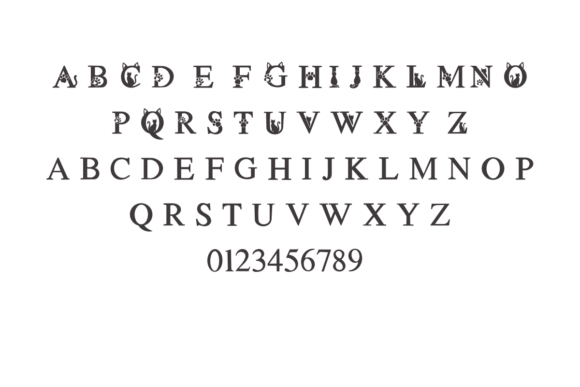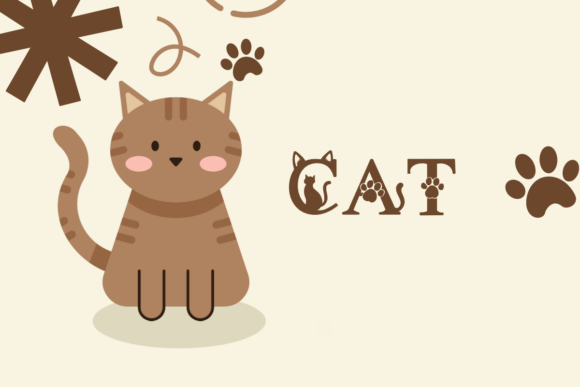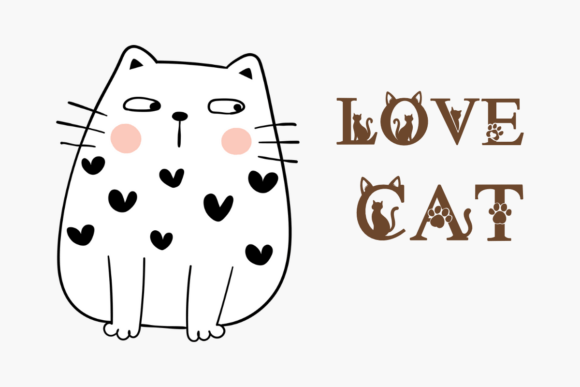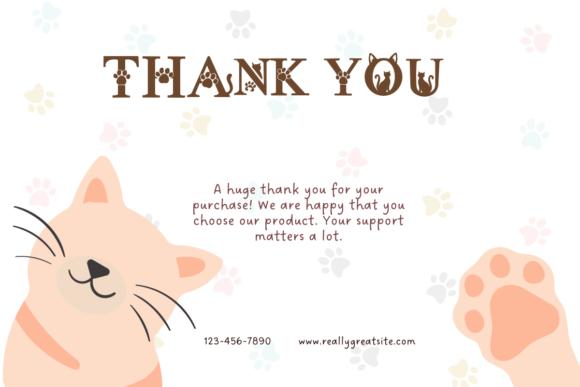
Cute Cat Font: A Whimsical Decorative Font to Celebrate Your Feline Obsession
Are you a cat lover looking for a unique and playful way to express your feline obsession? Look no further than the Cute Cat font, a charming decorative typeface that turns every character into a tribute to the world’s favorite pet. This creative font features elegant, high-contrast serif letters beautifully integrated with playful cat silhouettes, curious ears, and dainty paw prints, making it the purr-fect addition to any design project.
A Perfect Blend of Sophistication and Whimsy
The Cute Cat font is designed to bring a smile to any project, offering a perfect blend of sophisticated typography and charming illustrations. The elegant, high-contrast serif letters provide a touch of sophistication, while the playful cat silhouettes, ears, and paw prints add a whimsical touch. This unique combination makes the Cute Cat font an excellent choice for designers and crafters looking to add a personal touch to their work.
Ideal for Pet-Themed Projects
The Cute Cat typeface is a must-have for pet boutique branding, veterinary clinic flyers, and children’s nursery decor. The font’s playful and charming design makes it an excellent choice for creating engaging and eye-catching headlines for pet-themed projects. Whether you’re designing a logo for a pet store, creating flyers for a veterinary clinic, or decorating a nursery with cat-themed wall art, the Cute Cat font is the perfect choice.
Perfect for DIY Craft Projects and Digital Scrapbooking
The decorative nature of the Cute Cat typeface makes it an excellent choice for DIY craft projects, Cricut enthusiasts, and digital scrapbooking. The font’s unique and playful design makes it perfect for creating custom stationery, greeting cards, and social media content. Whether you’re a crafter looking to add a personal touch to your DIY projects or a digital scrapbooker looking for a unique font to enhance your designs, the Cute Cat font is a great choice.
Enhance Your Designs with Feline-Inspired Letterforms
One of the best features of the Cute Cat font is its versatility. The font’s feline-inspired letterforms can be used to create logo marks or as festive titles for animal-themed events. The font’s playful design also makes it perfect for creating custom illustrations, such as cat-themed icons, graphics, and animations.
Key Features of the Cute Cat Font
- Elegant, high-contrast serif letters
- Playful cat silhouettes, curious ears, and dainty paw prints
- Perfect blend of sophisticated typography and charming illustrations
- Ideal for pet-themed projects, DIY craft projects, and digital scrapbooking
- Unique and playful design makes it perfect for creating custom stationery, greeting cards, and social media content
Tips for Using the Cute Cat Font
Here are a few tips for using the Cute Cat font in your designs:
- Use the font to create eye-catching headlines for pet-themed projects
- Pair the font with simple backgrounds to make the design pop
- Experiment with different font sizes and colors to add visual interest
- Use the font’s feline-inspired letterforms to create custom illustrations and graphics
The Cute Cat font is a charming and playful decorative typeface that’s purr-fect for designers and crafters who love cats. With its elegant, high-contrast serif letters and playful cat silhouettes, curious ears, and dainty paw prints, this font is sure to bring a smile to any project. Whether you’re designing a logo for a pet store, creating custom stationery, or decorating a nursery with cat-themed wall art, the Cute Cat font is a great choice.